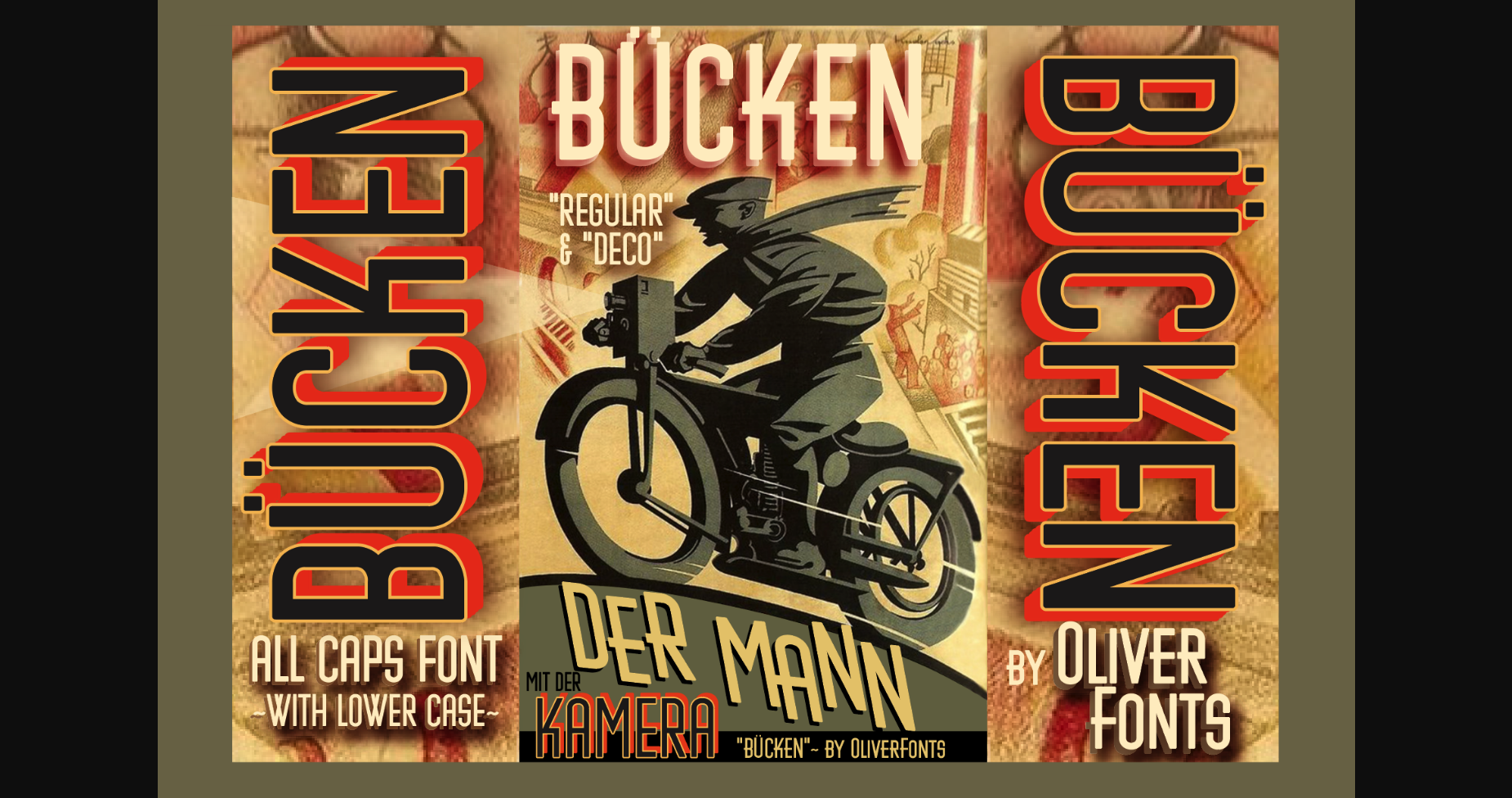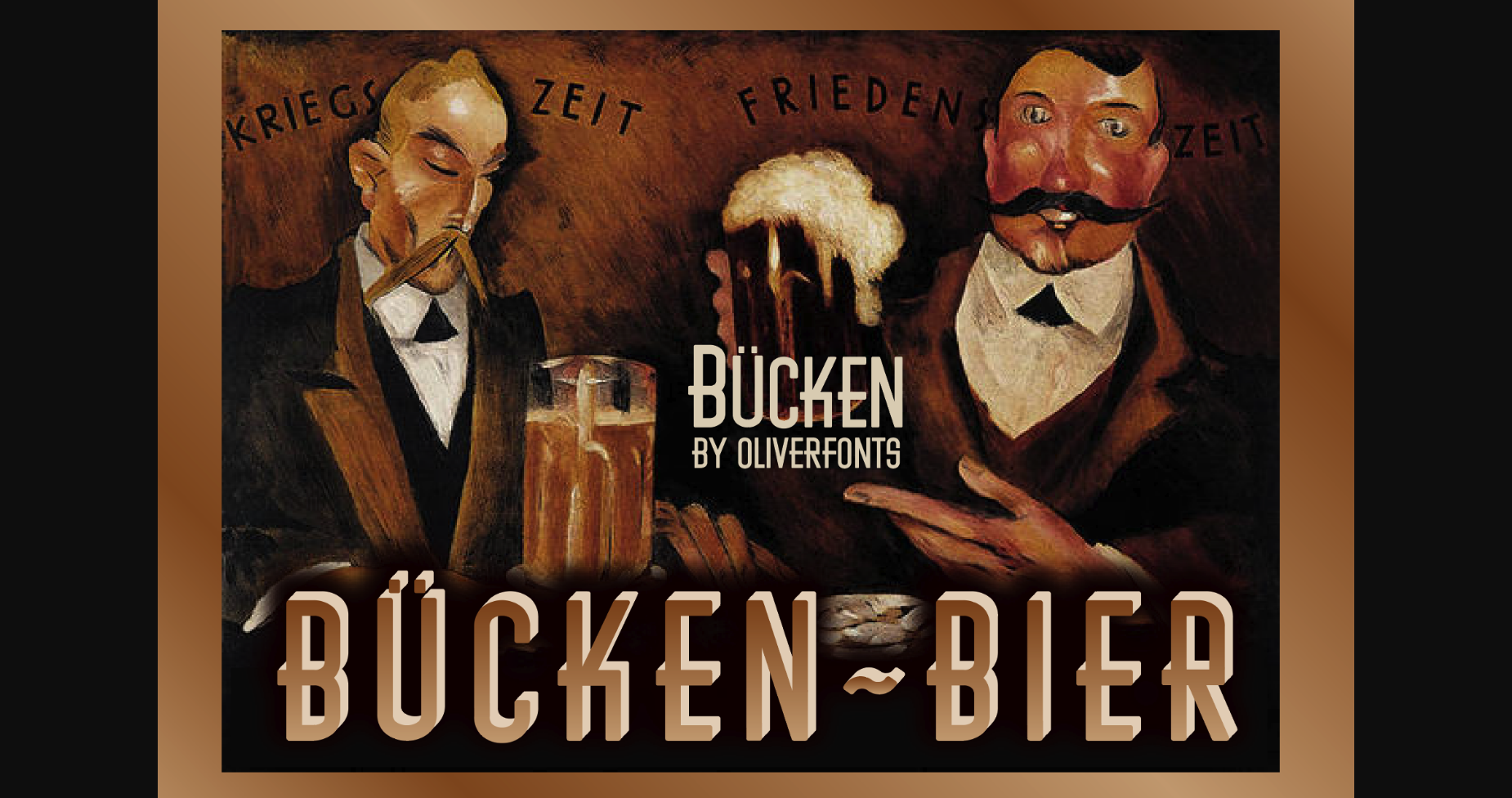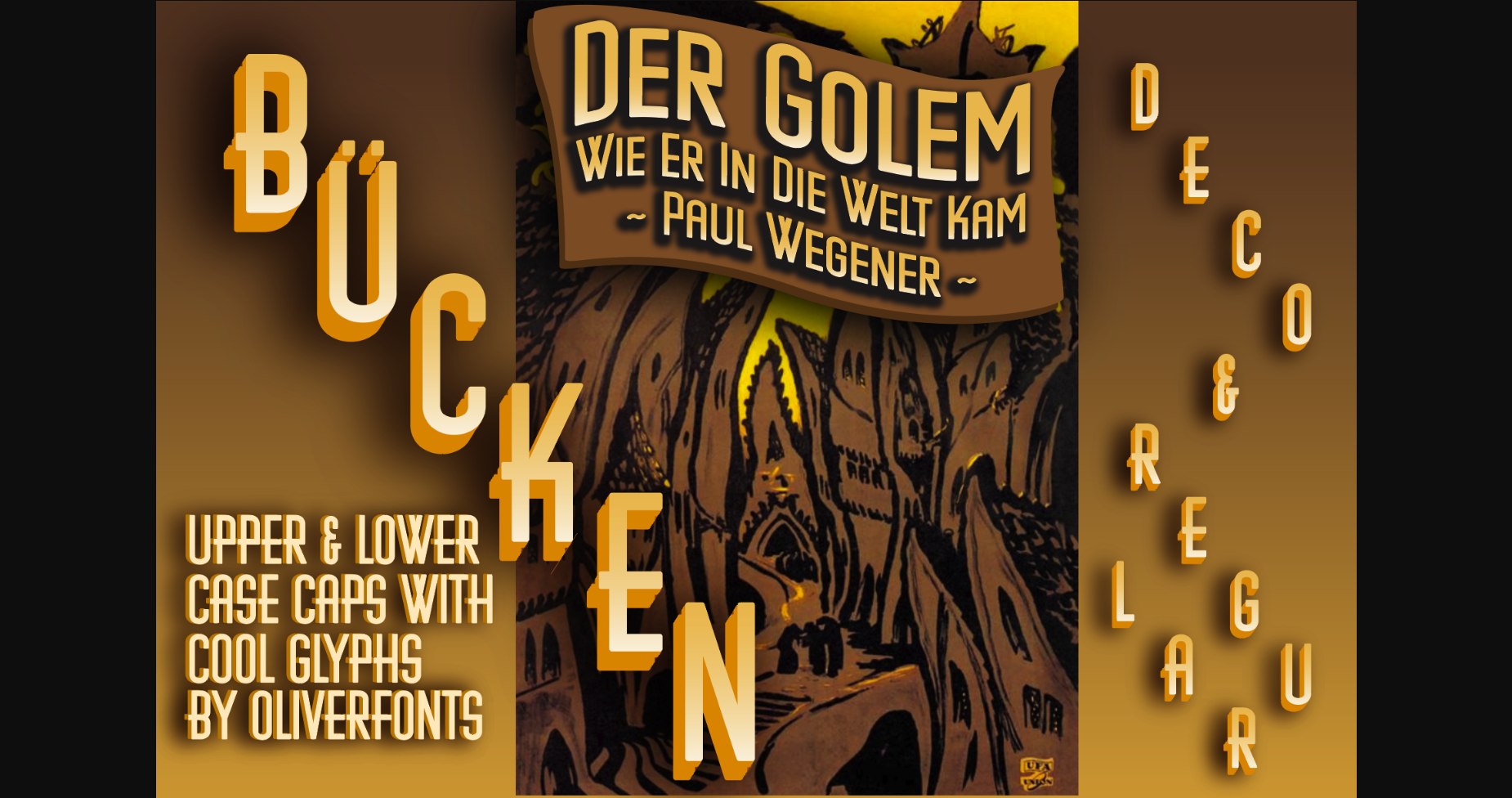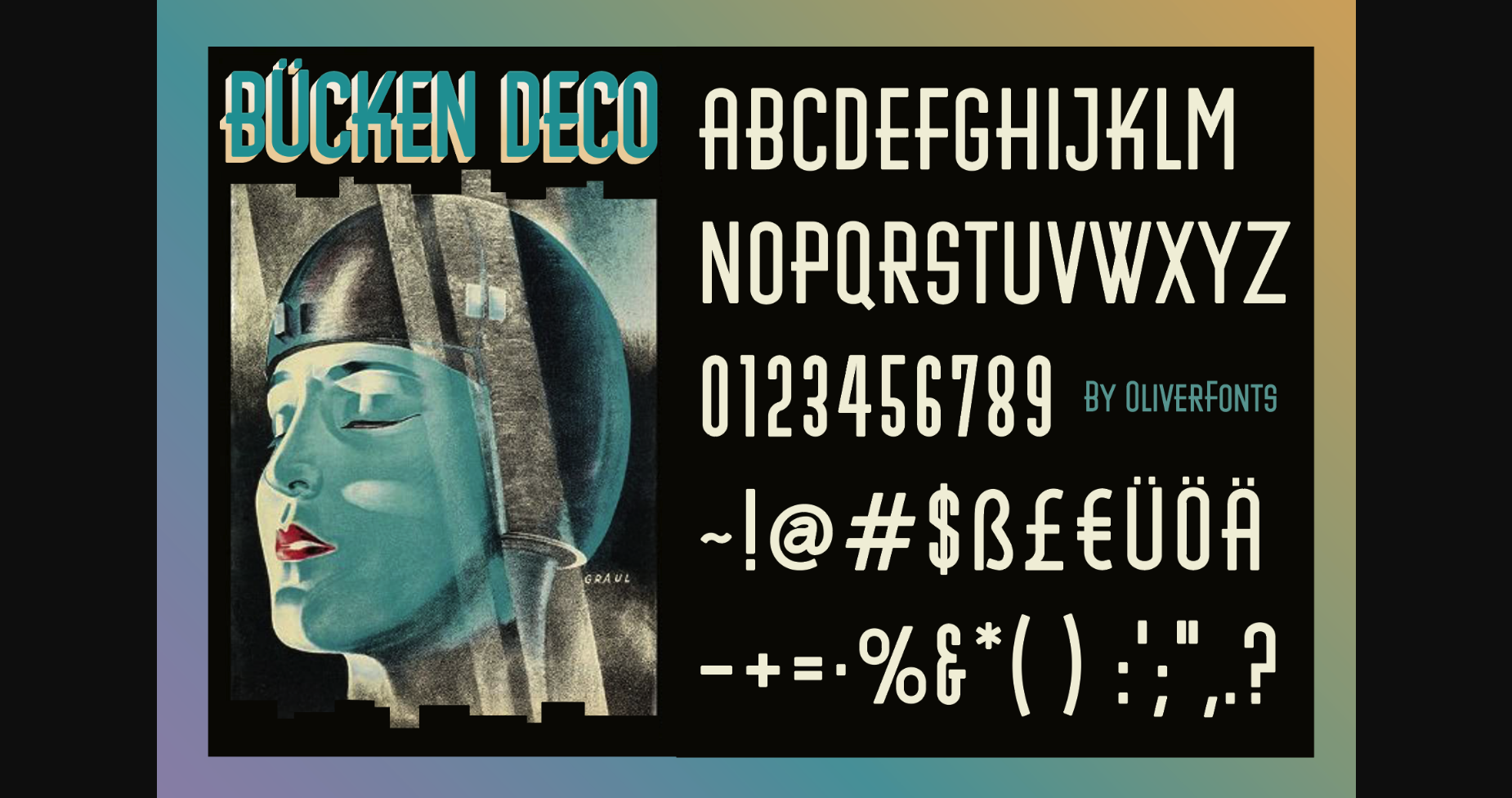
Bucken Font
About Bucken Font
Bucken is a cool and neat sans serif font. Its classy, professional look makes it incredibly versatile and suitable for a large variety of projects.